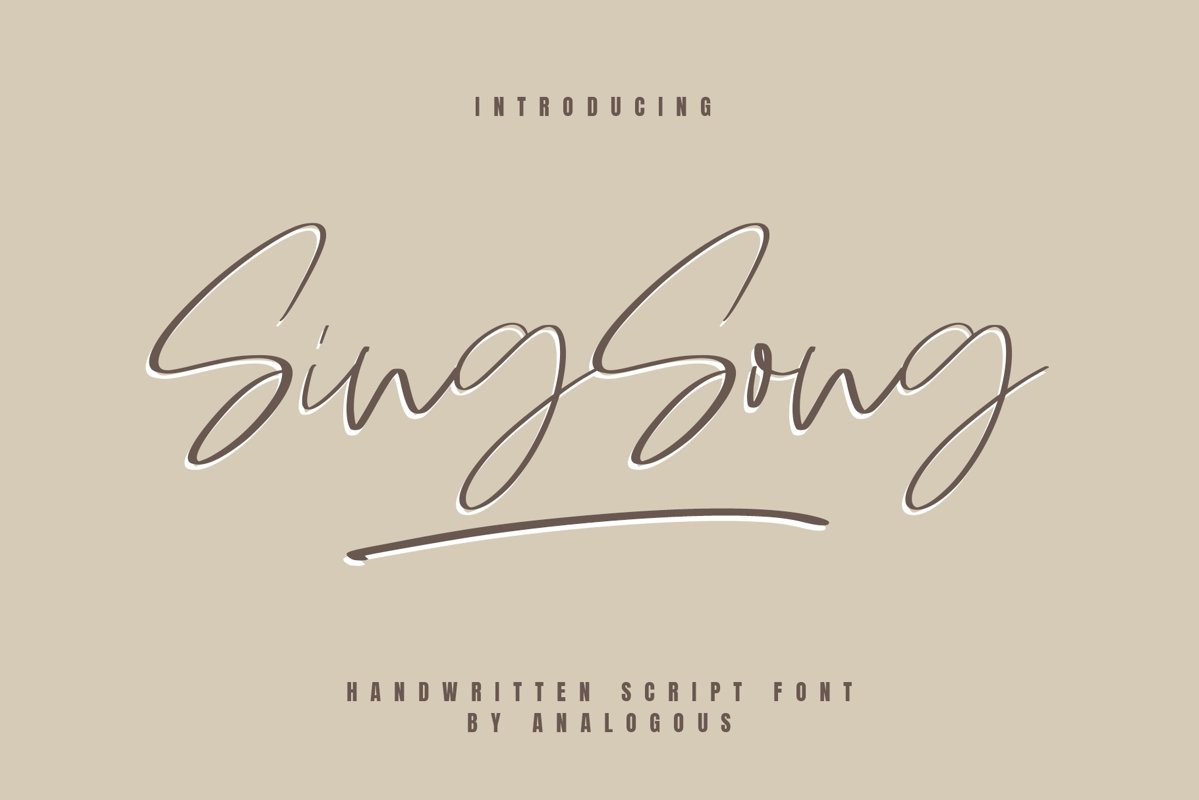
Sing Song | Handwritten Script Font
Analogous Studio - Sing Song
Sing Song is handwritten script font that is perfect for logos, posters, signage, and more! It's best used for logos, wedding stationery, social media, and quotes. Test it out in the box above to see how it would look for your next project!
Sing Song it comes in with alternate characters (OpenType feature). With multilingual support, this font also suitable to be combined with san-serif to get an extraordinary result for your design projects.
Ligatures
Swash Multilingual Support